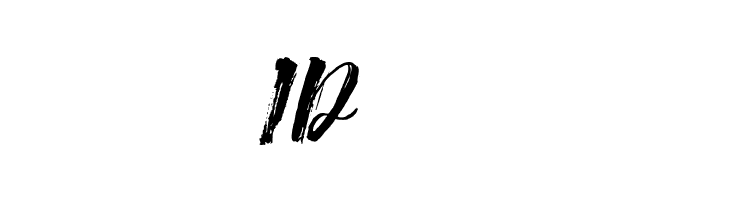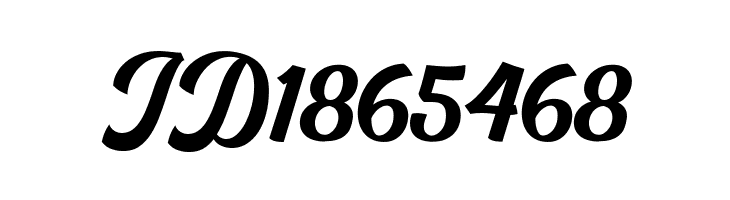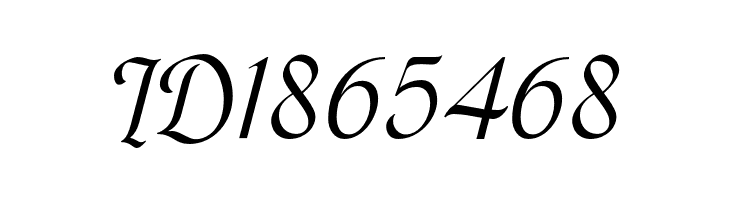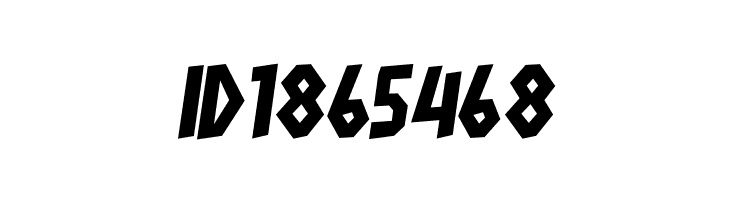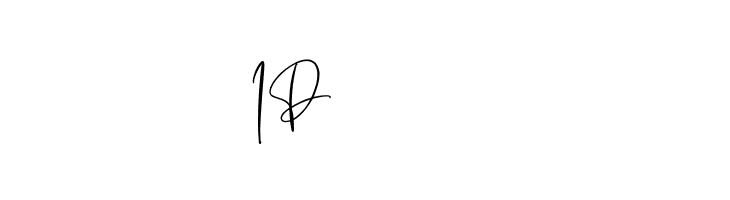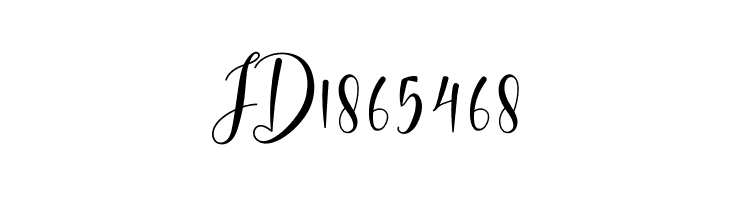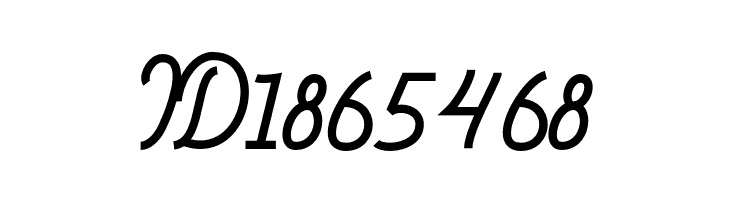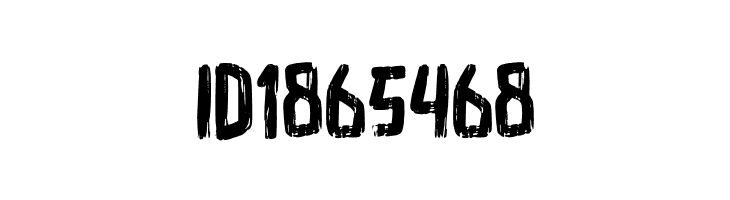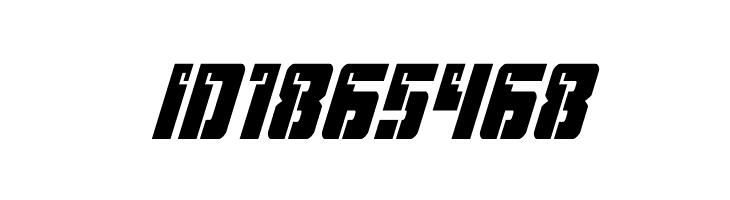
A bold, distressed font with a grungy, hand-painted style.
A bold, angular font with a dynamic slant and modern aesthetic.
A bold, dynamic script font with flowing, connected letters.
A bold, expressive script font with elegant, flowing letterforms.
A dynamic and expressive handwritten font with fluid, flowing letterforms.
A bold, dynamic brush script with expressive, textured strokes.
An elegant, flowing script font with graceful loops and cursive strokes.
A dynamic script font with elegant, flowing curves and connected letterforms.
An elegant script font with flowing, cursive lines and a classic aesthetic.